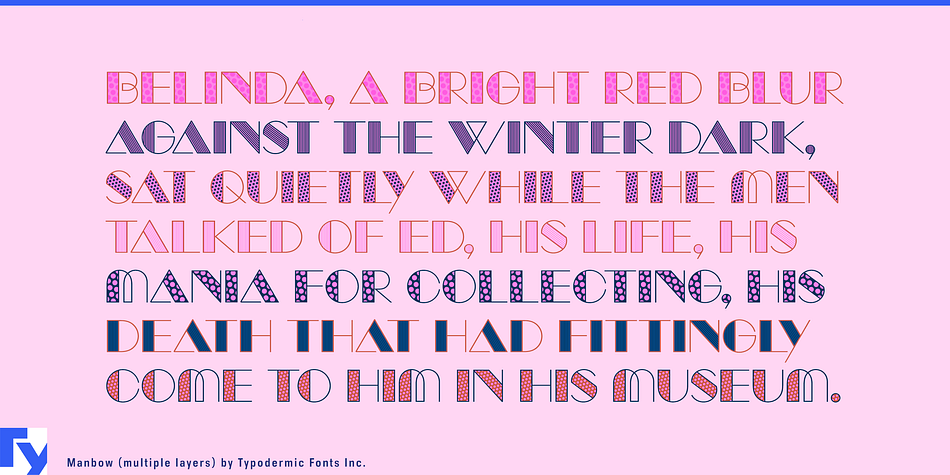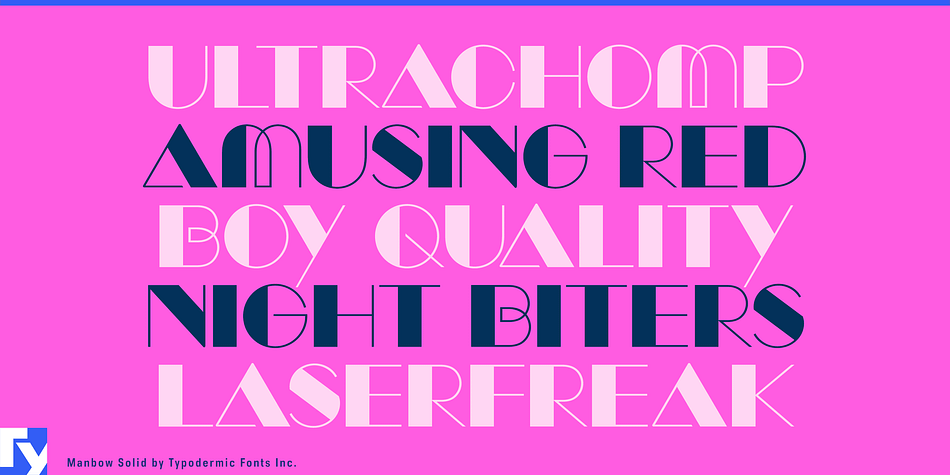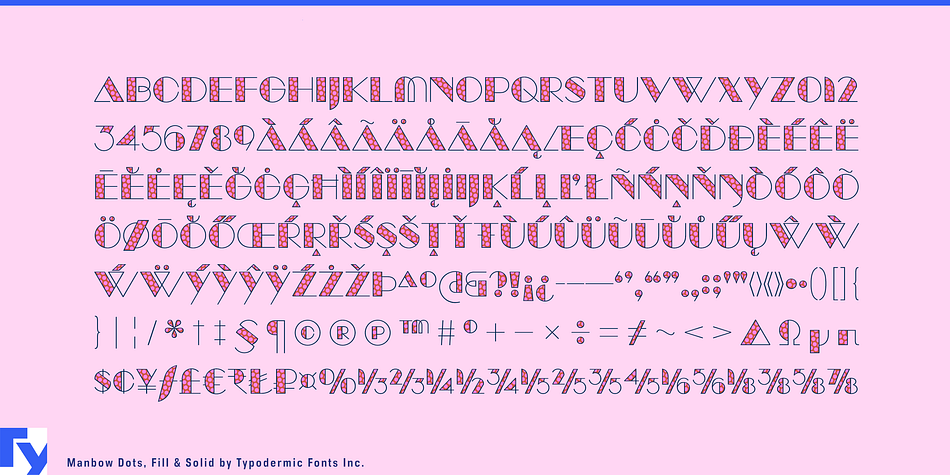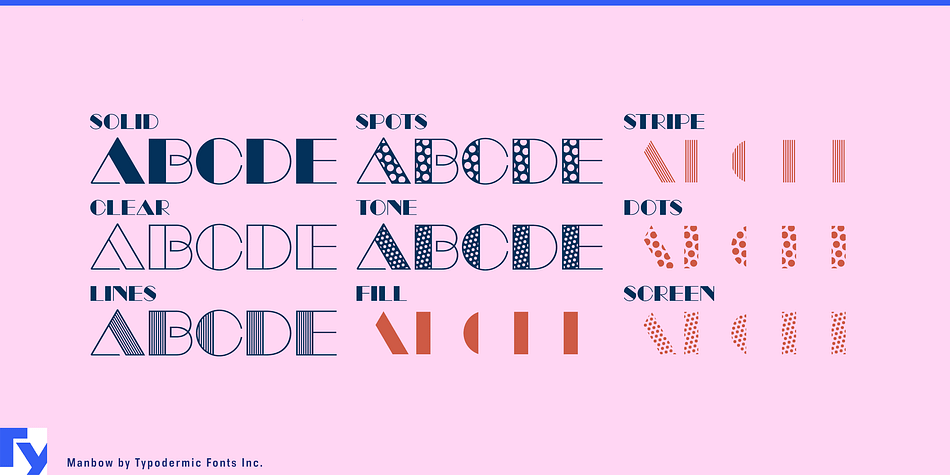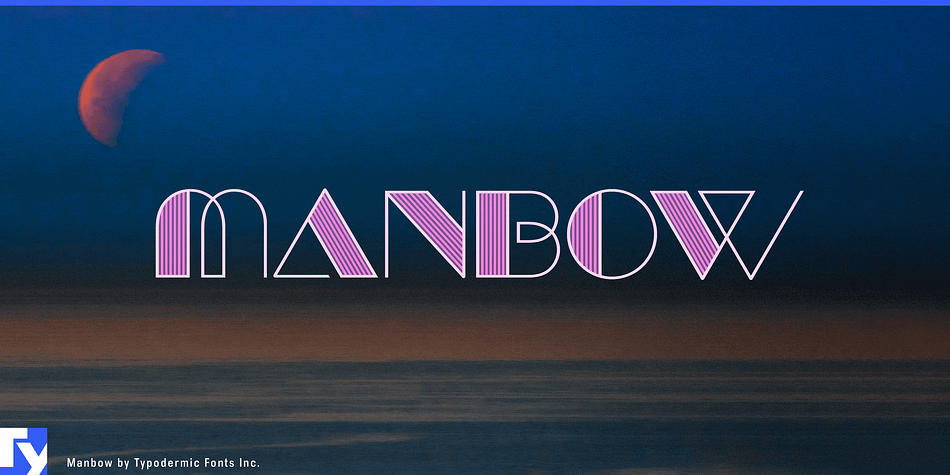
Manbow is a art deco font family. This typeface has nine styles and was published by Typodermic Fonts Inc.
Manbow is a geometric display font which includes solid, clear, stripe, polka-dot and screen patterns. Layers can be combined to create a multicolor effect.